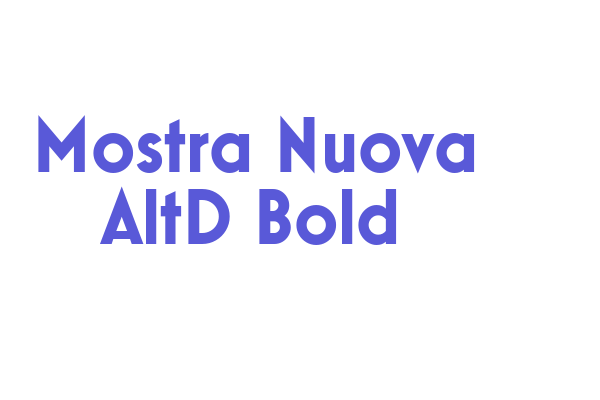
Mostra Nuova AltD Bold is a modern and sleek sans-serif font designed by Mark Simonson. Its bold style makes it perfect for creating eye-catching headlines and titles. This font belongs to the basic sans-serif category, making it versatile and suitable for a wide range of design projects.
Font Name: Mostra Nuova AltD Bold
Designer: Mark Simonson